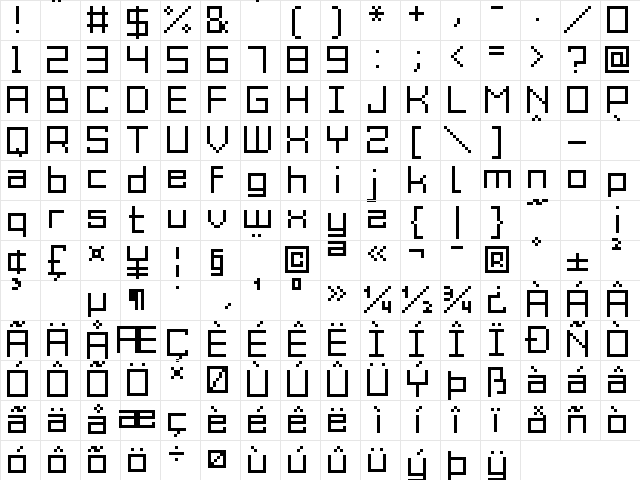
Complete Grixel Acme 9 Regular Xtnd Regular glyph index. Displaying only characters natively supported by Grixel Acme 9 Regular Xtnd Regular font.
Grixel Acme 9 Regular Xtnd is a composed and adaptable typeface that performs quietly and consistently across a wide range of design contexts.